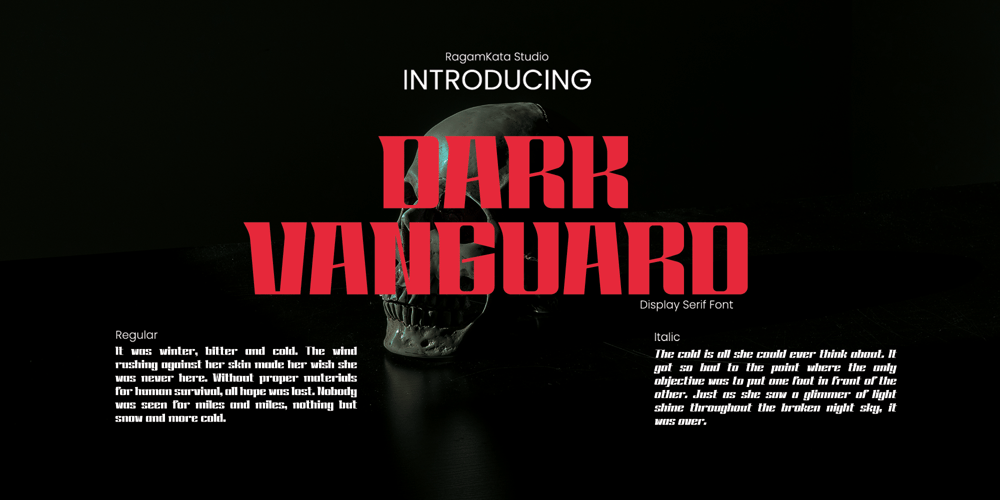
DarkVanguard
DarkVanguard font
DarkVanguard Font Family was designed by Yogiswhara Dio Prakoso Riadi and published by RagamKata. DarkVanguard contains 2 styles and family package options. Lucifer is Modern Display Font. This typeface is perfect for branding, logos, headlines, Captions. or simply as a stylish text overlay to any background image.